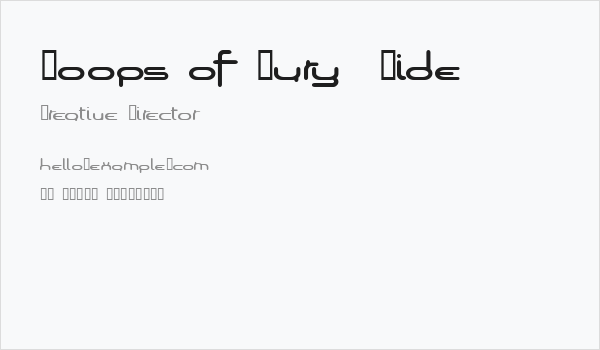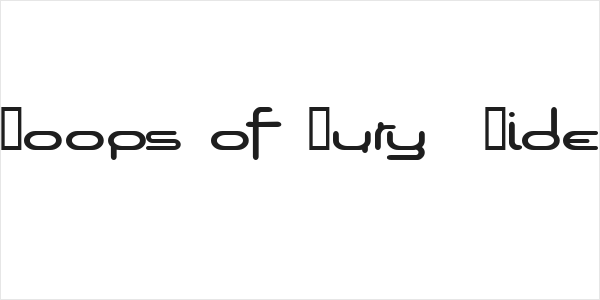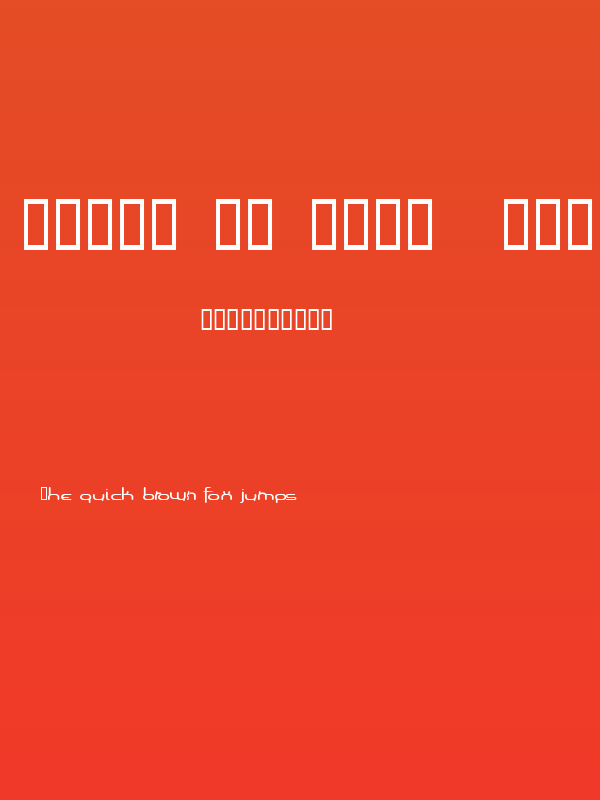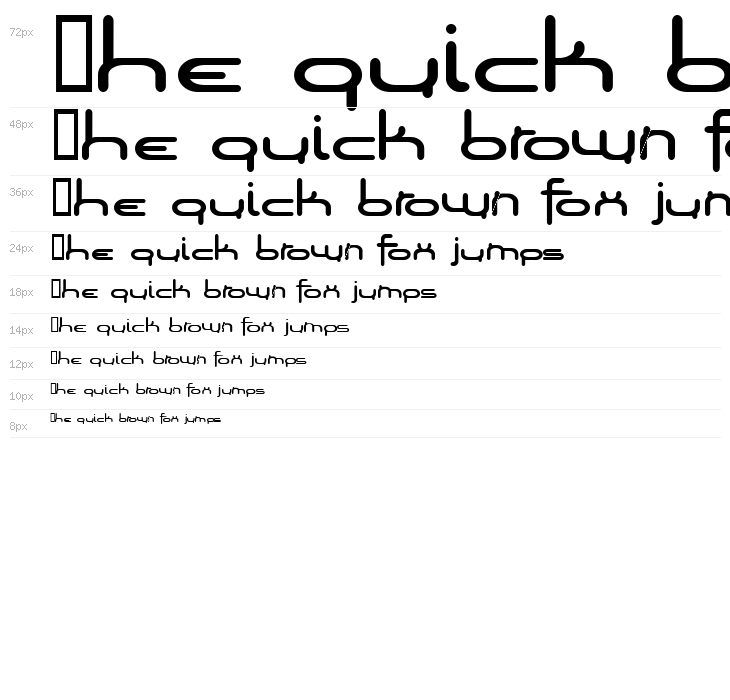
Loops of Fury Wide Font
Loops of Fury Wide Description
This font features a futuristic and geometric design with a wide stance, characterized by its looped and interconnected letterforms. The lowercase letters exhibit a smooth, flowing style with rounded edges, while maintaining a consistent stroke width throughout. The uppercase letters are not visible, but the overall style suggests a modern and sleek appearance. The font's unique loops and curves give it a dynamic and energetic feel, making it stand out in any design context.
| Proposed Projects | Ideal for sci-fi themed projects, modern branding, tech-related designs, and creative posters. |